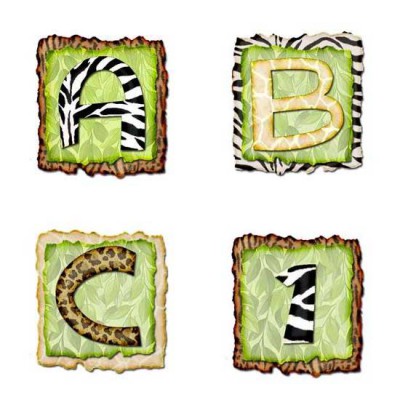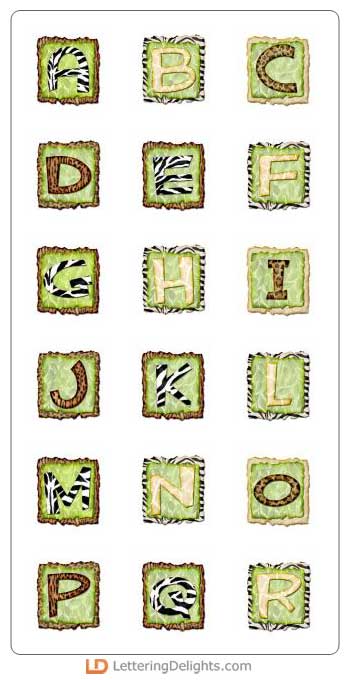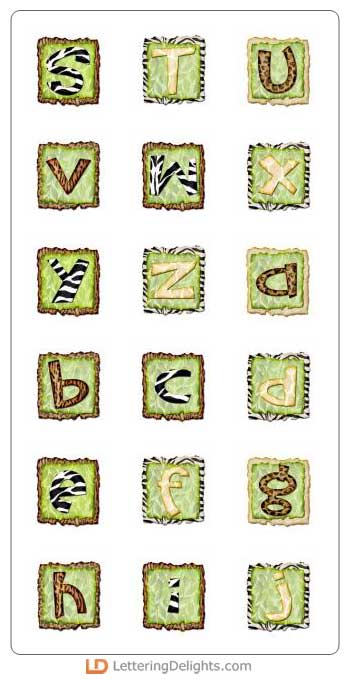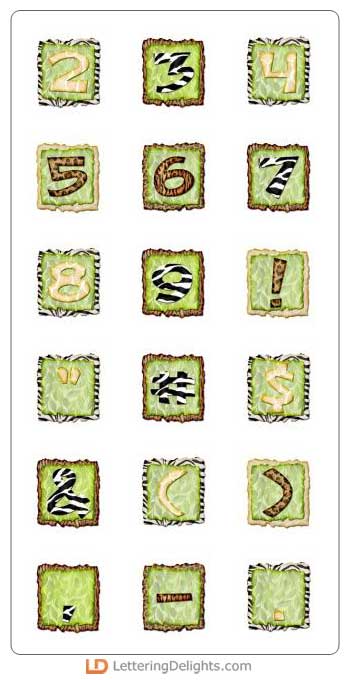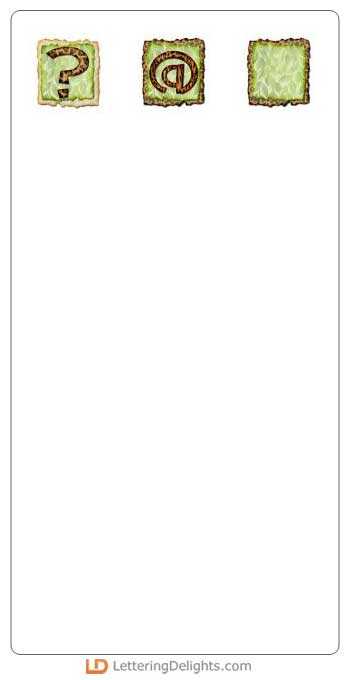
Lions, tigers, and zebras, oh my! Give your jungle-themed paper crafts a boost with this safari inspired alphabet. They're perfect for zoo photos or jungle party invites, especially when embellished with the matching Journaling Delight set.